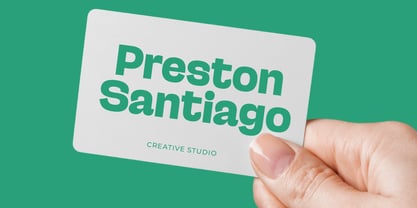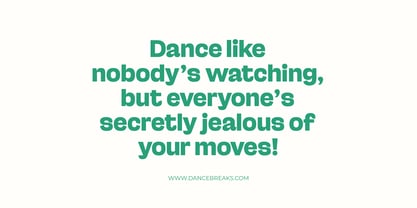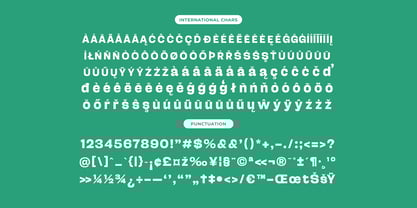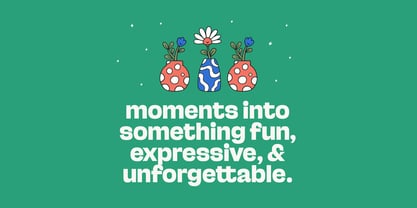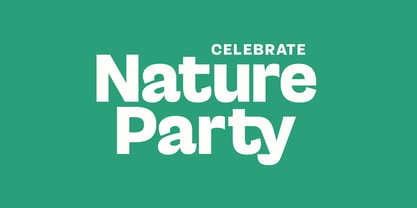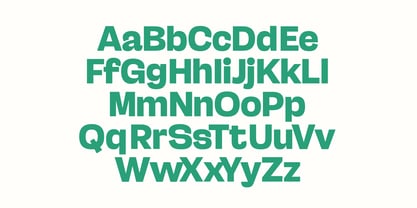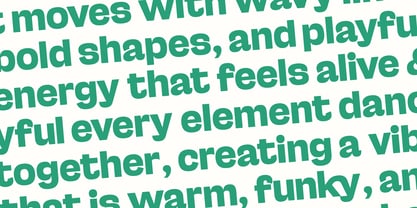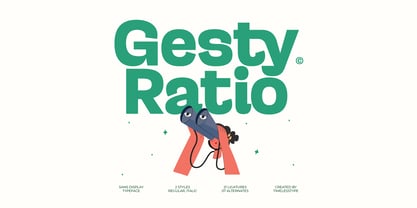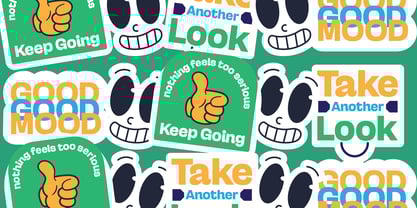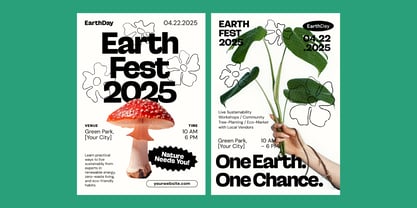
The Gesty Font Family was designed by Heru Utama Putra and published by Timelesstype Studio. Gesty contains 2 styles and family package options.
Gesty Complete Family
Gesty - Sans Display Typeface , from Timelesstype , Suitable for any projects such as: logos, branding projects, homeware designs, product packaging, mugs, quotes, posters, shopping bags, t-shirts, book covers, name card, invitation cards, greeting cards, label, photography, watermark, special events, and all your other luxury and beautiful projects that need a Luxury Serif taste.
Gesty